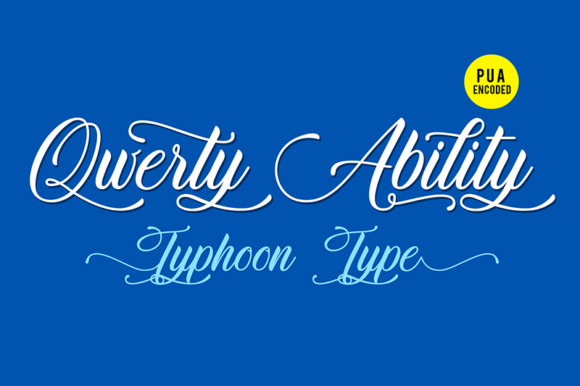
Qwerty Ability Font
About Qwerty Ability Font
Qwerty Ability is a bold and unique handwritten font with lots of personality. Get inspired by this classic and stunning script!